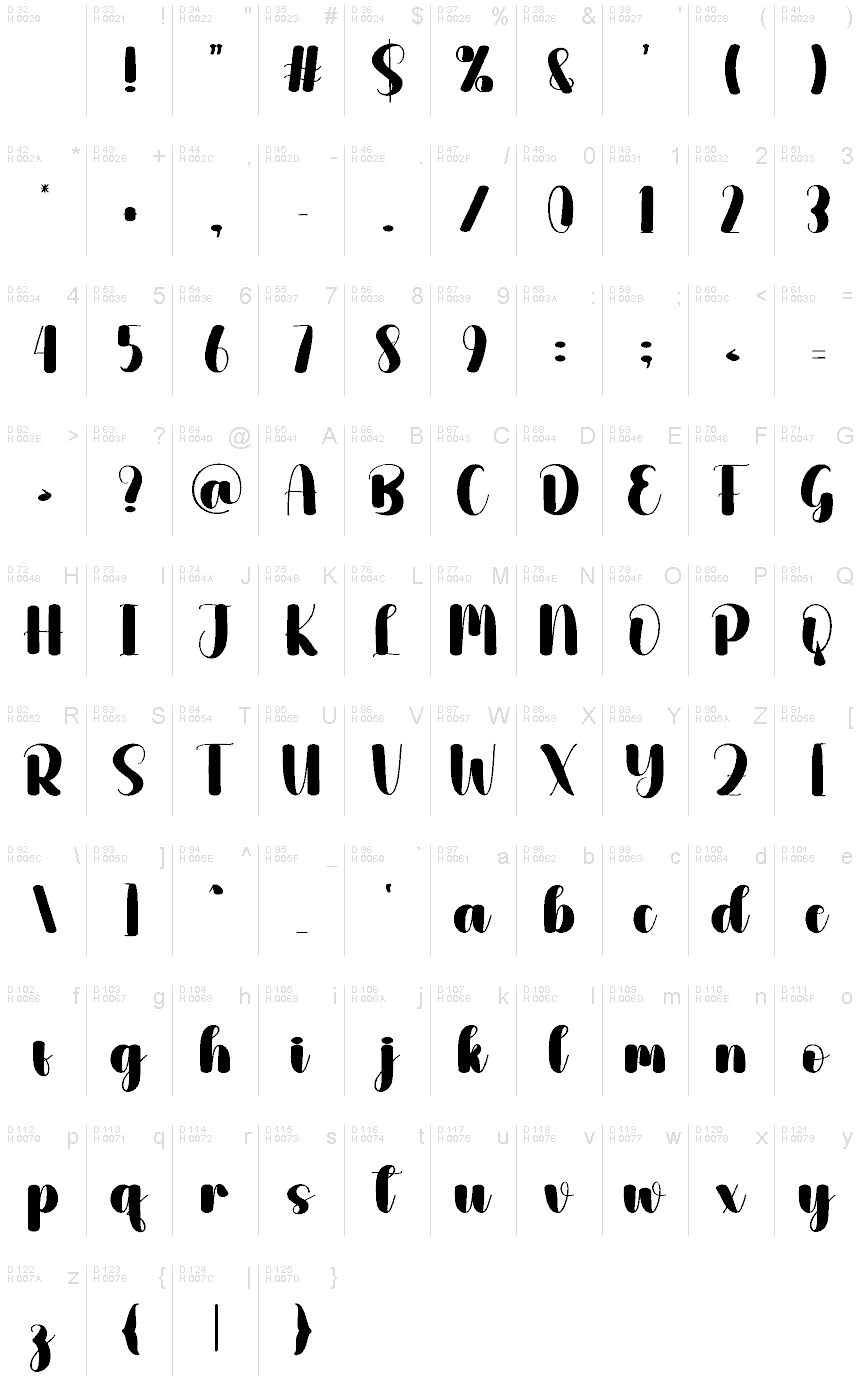
Datepalm
Datepalm font is a free brush script developed by Andi Moz. Featuring effortlessly fluid strokes, this handwritten font embodies sophistication in its forms for an elegant visual that levels up any project instantly. Each letter is connected to the one after it for continuity and outflow of message and feel.